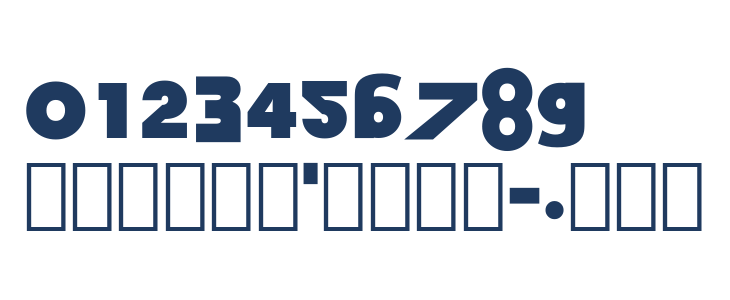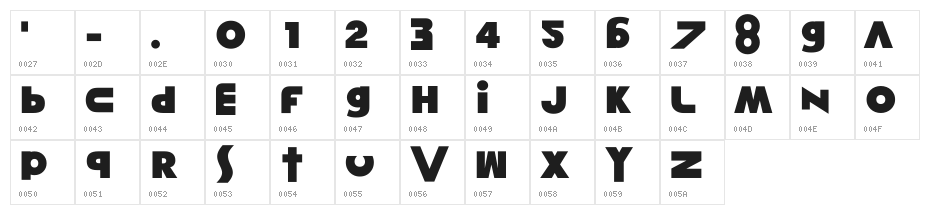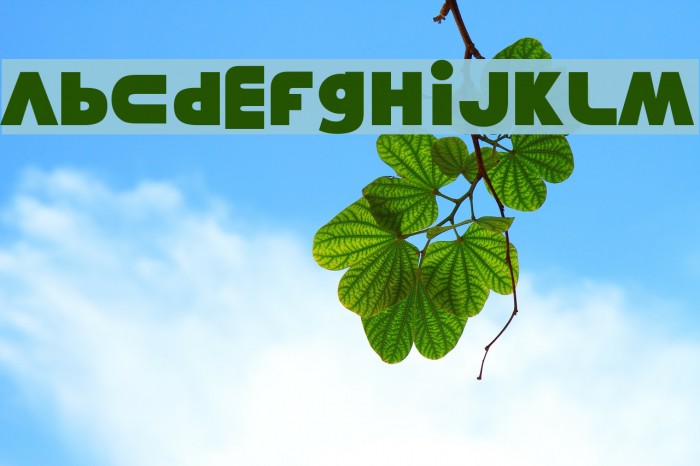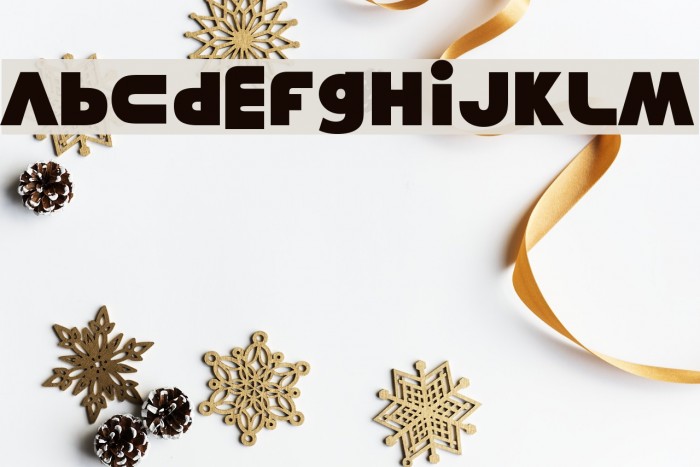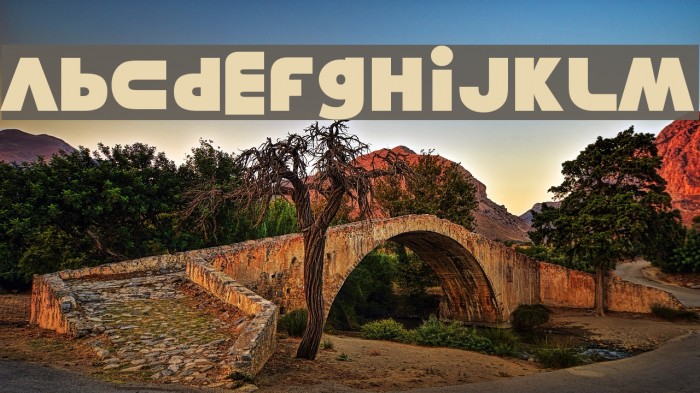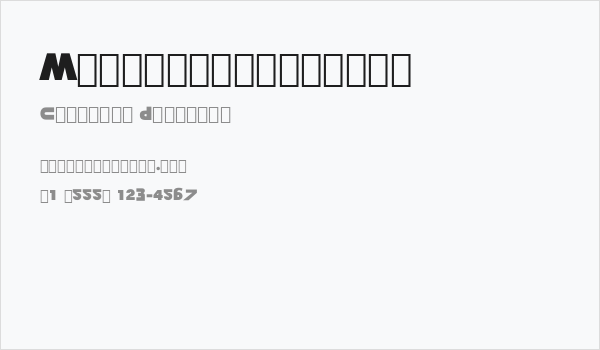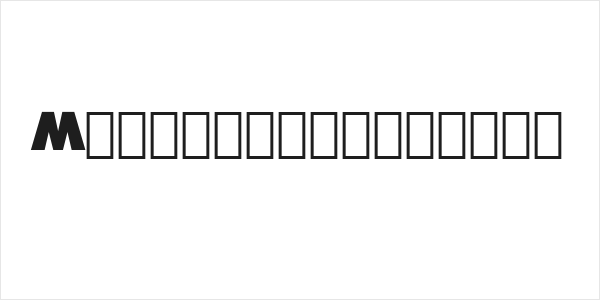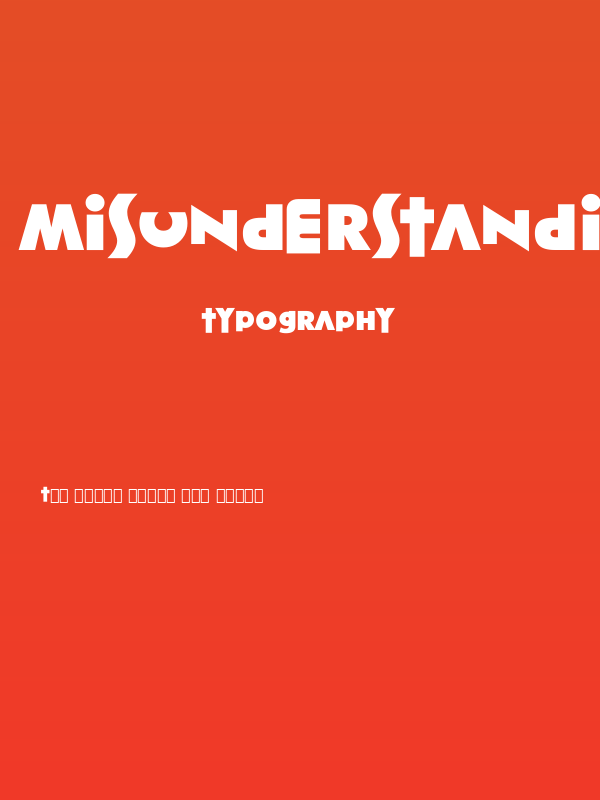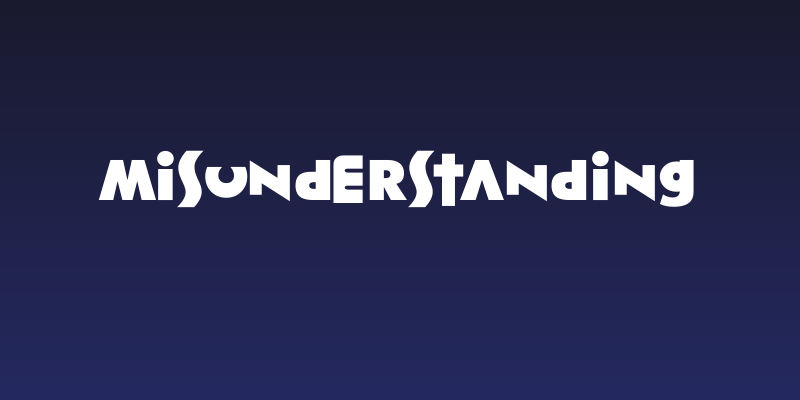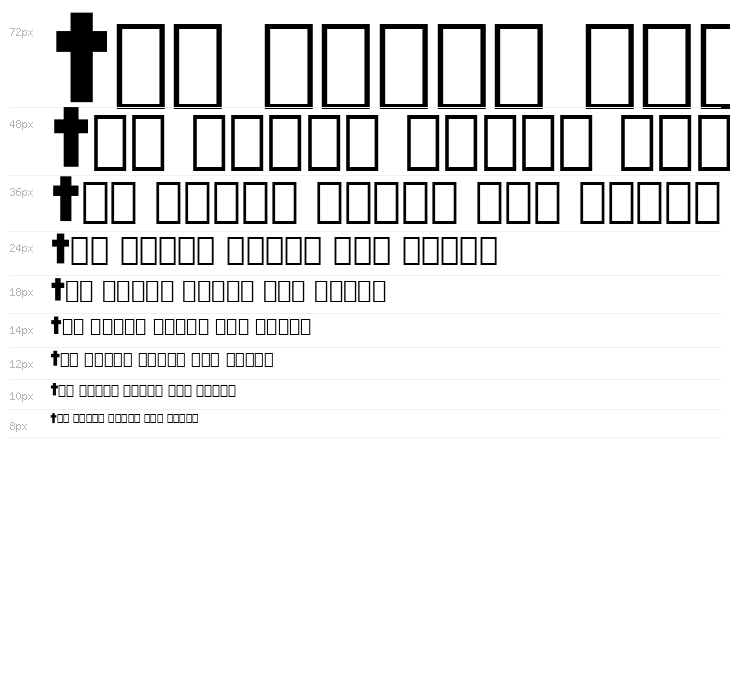
Misunderstanding Font
Misunderstanding Description
This font features a bold and geometric style with strong, angular lines and a modern aesthetic. The characters are constructed with a unique blend of sharp edges and smooth curves, creating a dynamic and eye-catching appearance. The uppercase and lowercase letters maintain a consistent weight, contributing to a cohesive look. The numerals and special characters are designed with the same boldness, ensuring uniformity across all glyphs. This font's distinct style makes it suitable for projects that require a strong visual impact.
| Proposed Projects | Ideal for branding, posters, headlines, and any design requiring a modern, impactful look. |